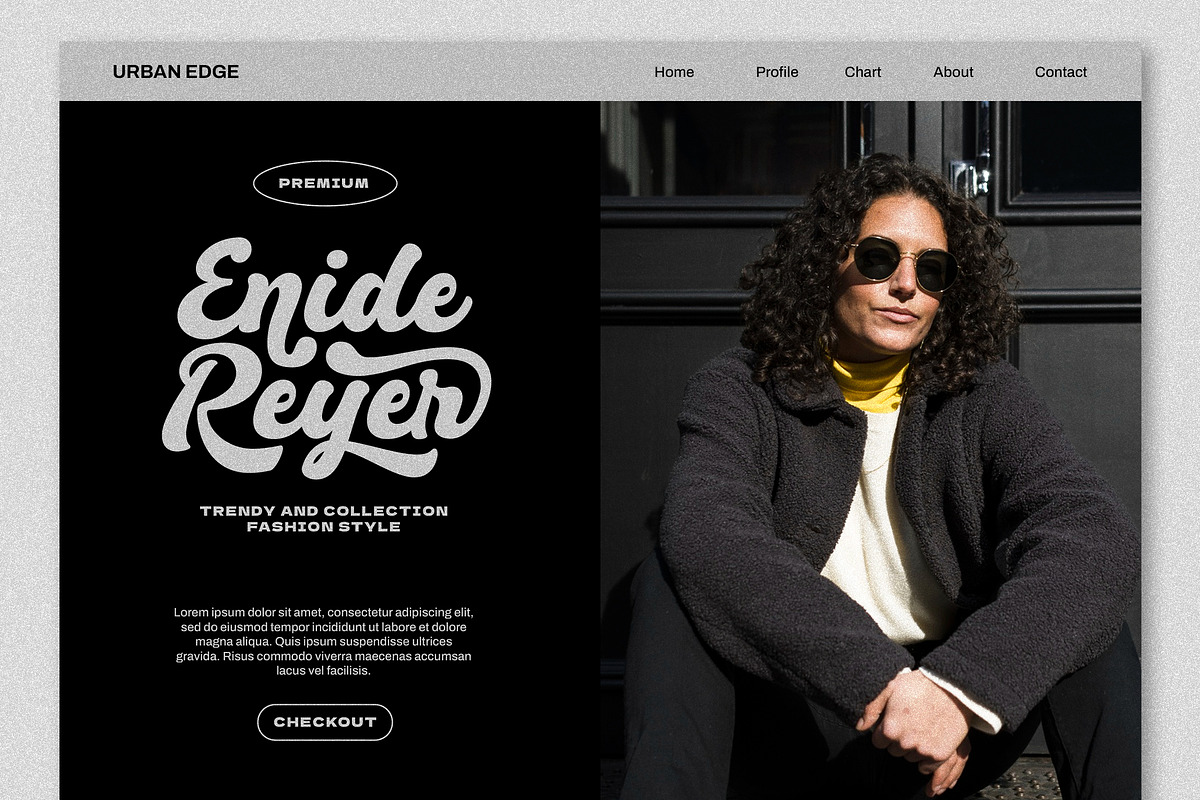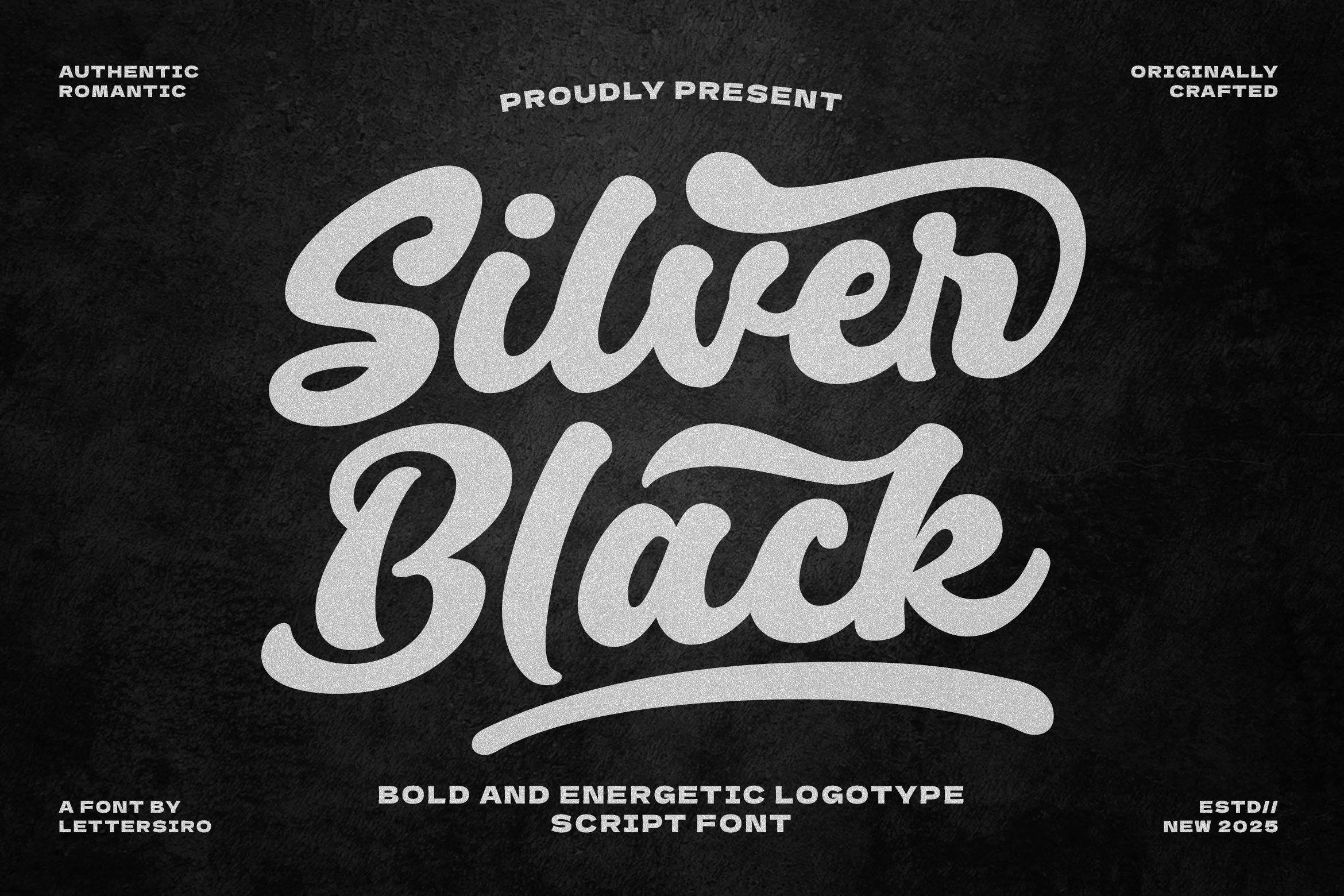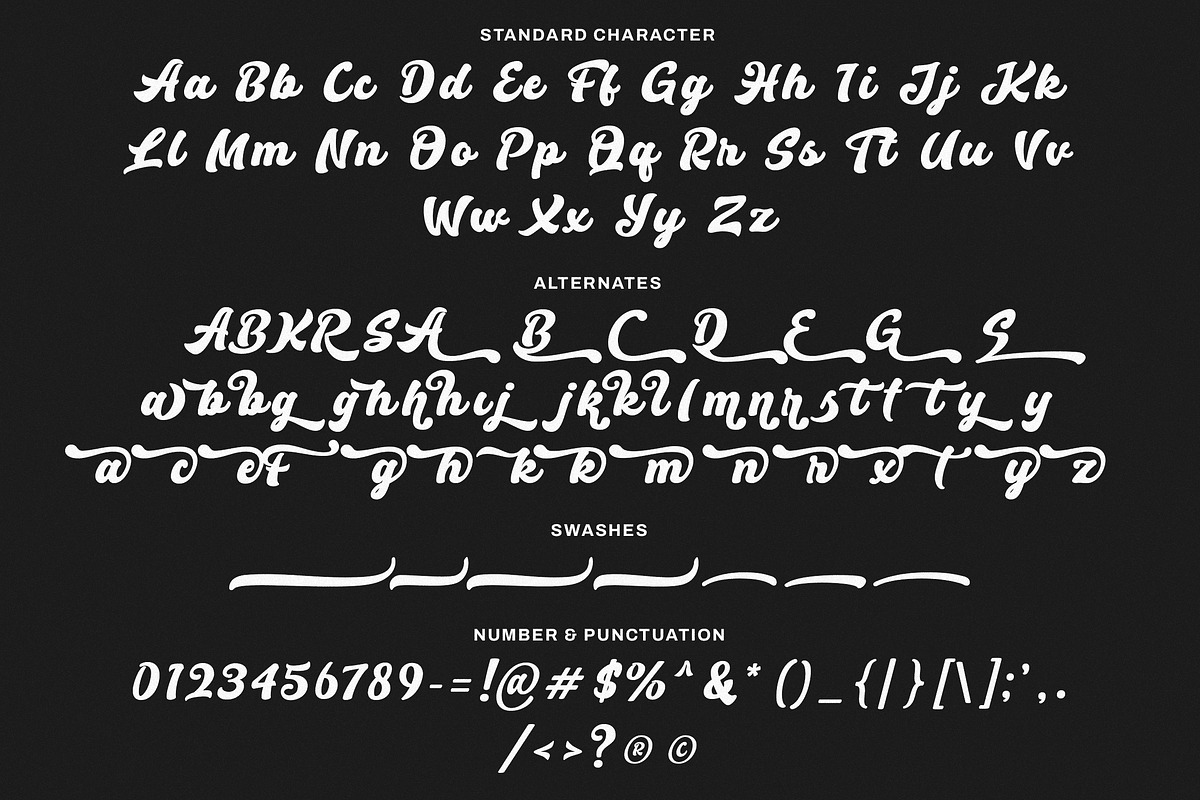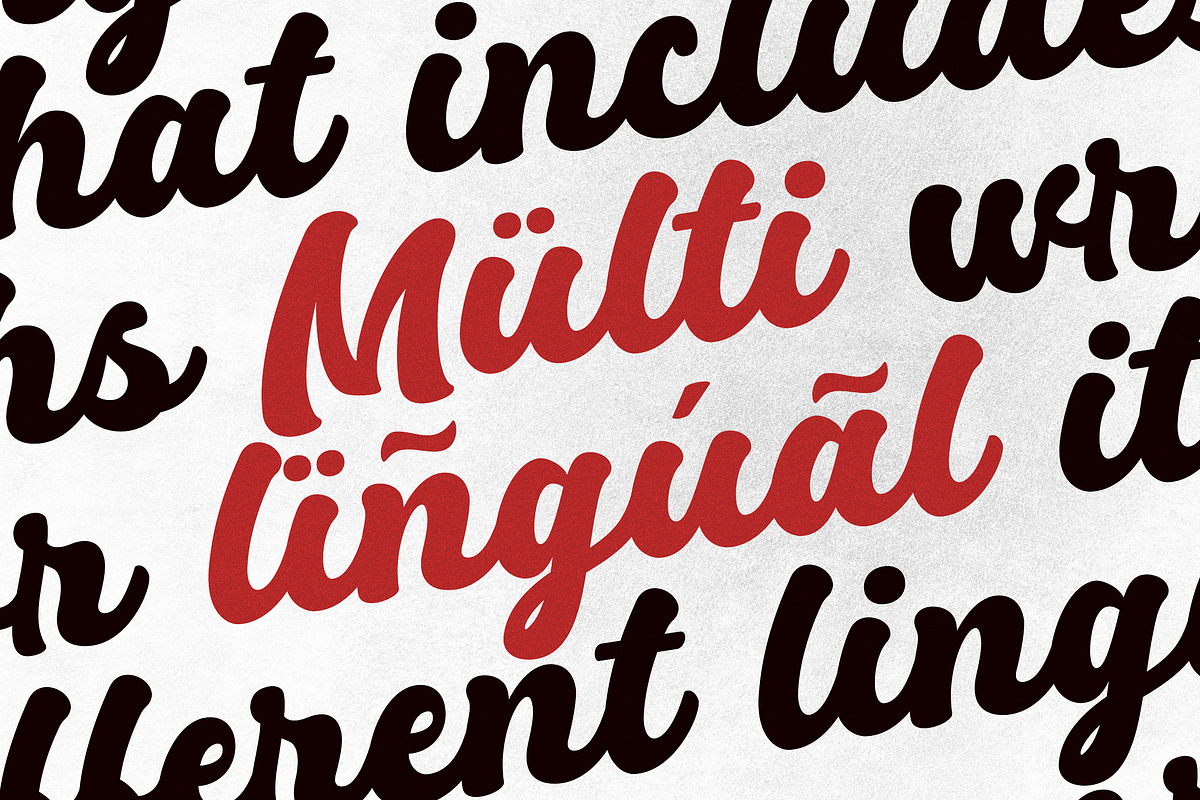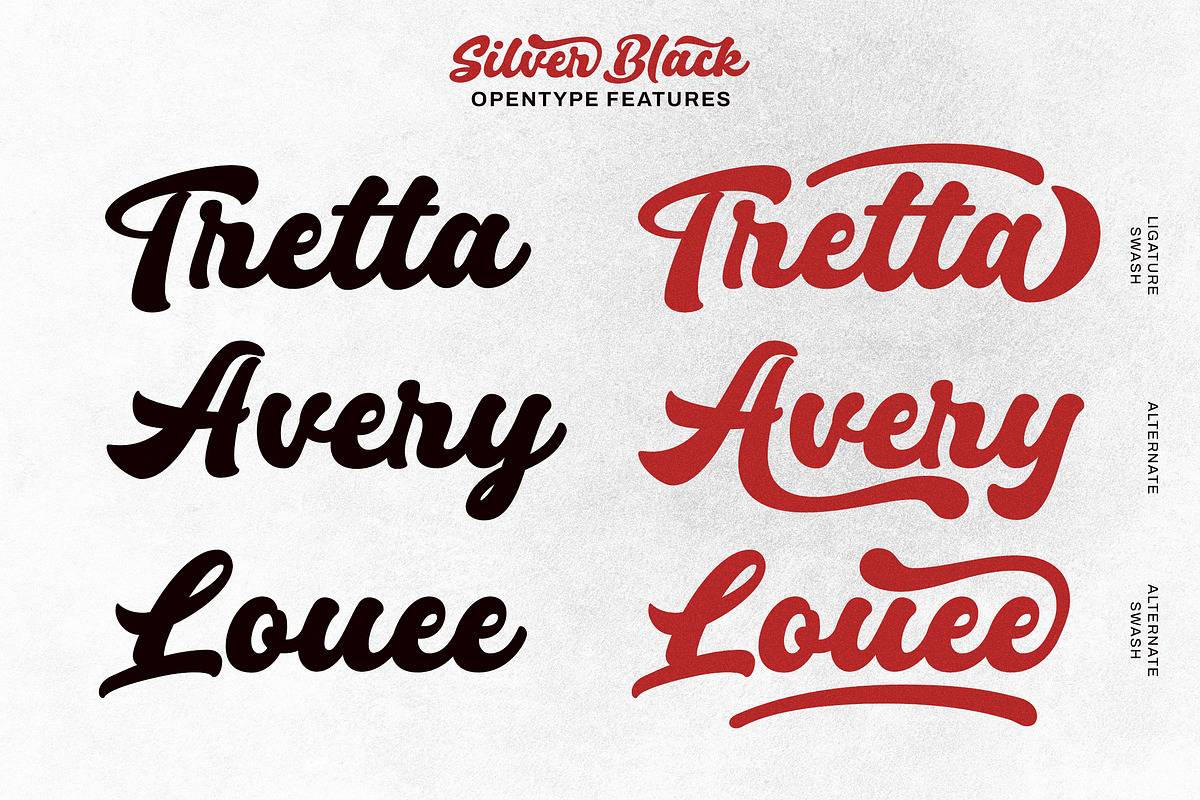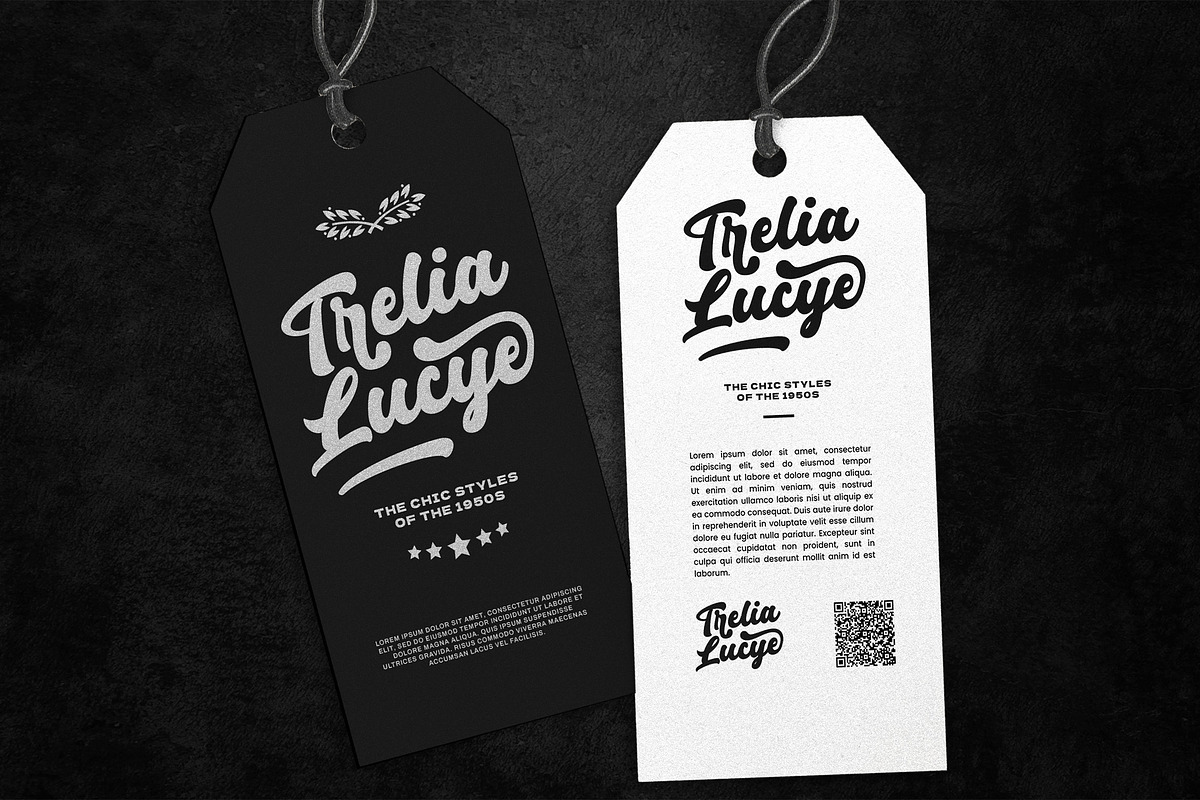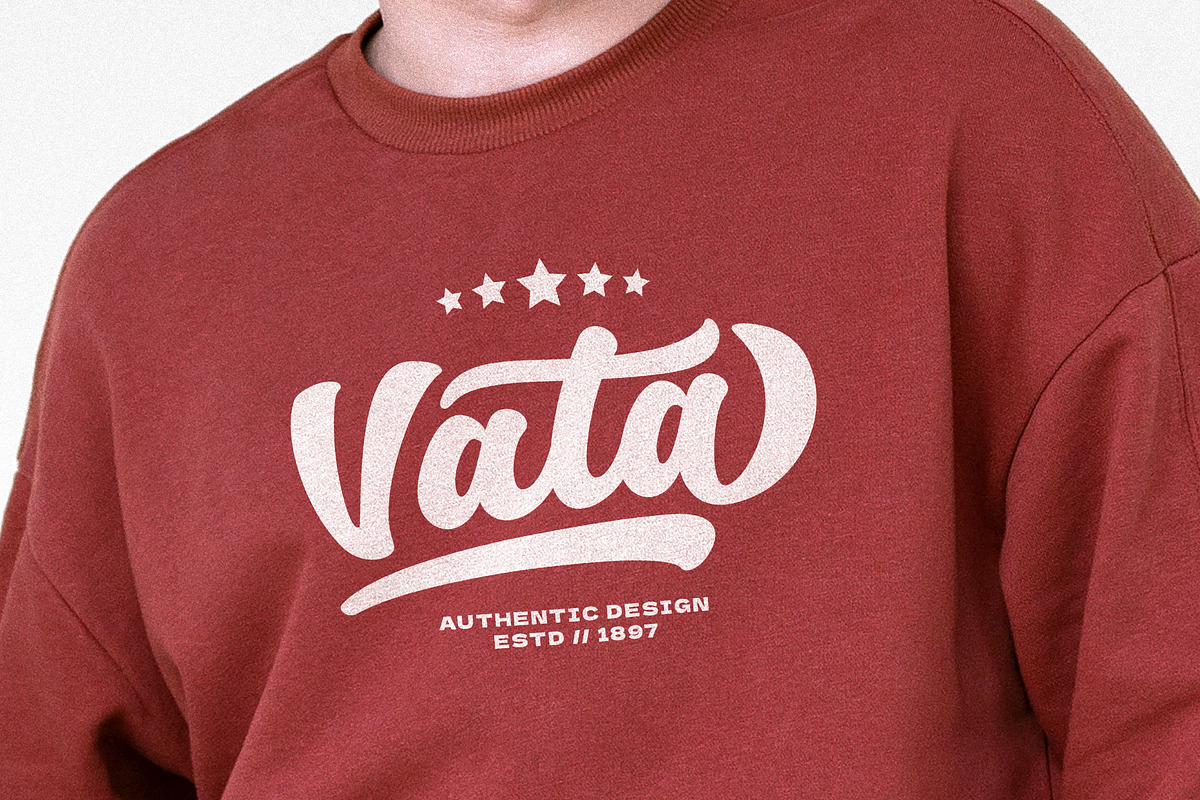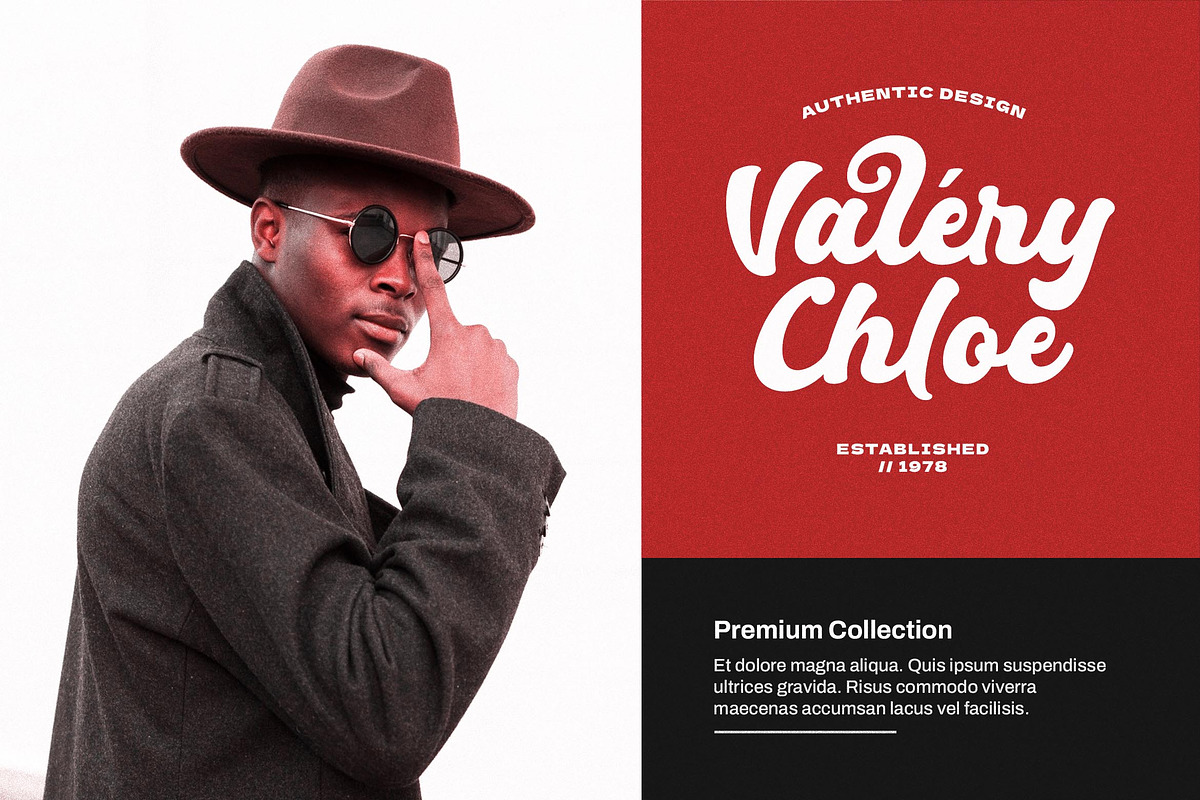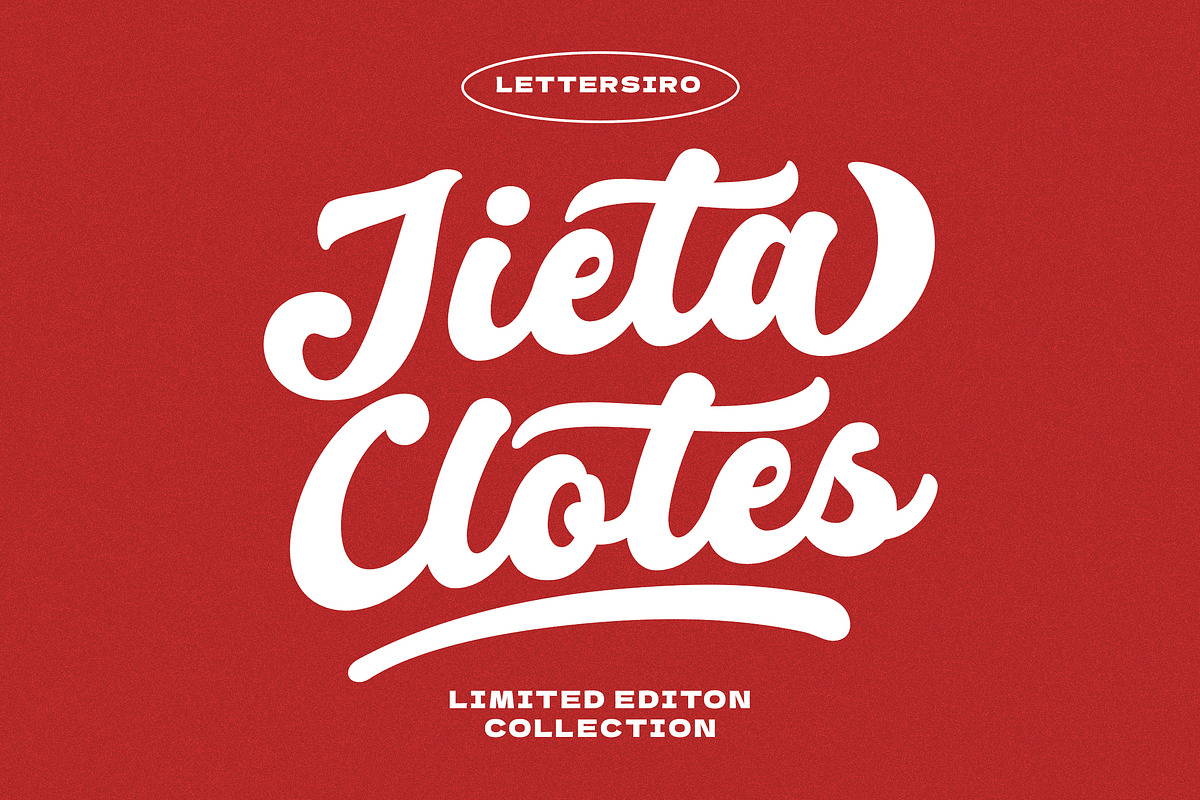
Silver Black – Logotype Font
Silver Black – Bold Script Logotype Font
Silver Black is a bold script font designed for powerful logotypes and standout branding. With thick curves, smooth connections, and energetic strokes, this typeface is built to command attention across product packaging, advertisements, social media, and apparel designs.
Featuring a wide range of alternate letters and swashes, Silver Black gives you full creative control to build authentic, stylish logos with natural flow and personality. Whether you're designing for a bold fashion label, a streetwear brand, or promotional headlines, this font brings intensity and style in one solid package.
Perfect for modern branding and display needs, Silver Black delivers both versatility and strong visual impact—ideal for creators who want to leave a lasting impression.
Bold Logotype Style – Designed for logos and branding with confident curves
Alternates & Swashes – Dozens of alternates and tail swashes for custom letter styling
Complete Character Set – Uppercase, lowercase, numbers, punctuation, and symbols
OpenType Features – Supports alternates and contextual swashes
Multilingual Support – Supports Western European languages
Logo Design – Create bold, stylish wordmarks that stand out
Apparel & Merchandise – Perfect for branding shirts, tags, and labels
Advertising & Promo – Make eye-catching headlines and campaign graphics
Product Packaging – Bring expressive personality to your visual identity
Modern Branding – Great for startups, lifestyle brands, and personal labels
Silver Black gives your brand an authentic voice—perfectly suited for logotypes that need to be loud, expressive, and stylish.